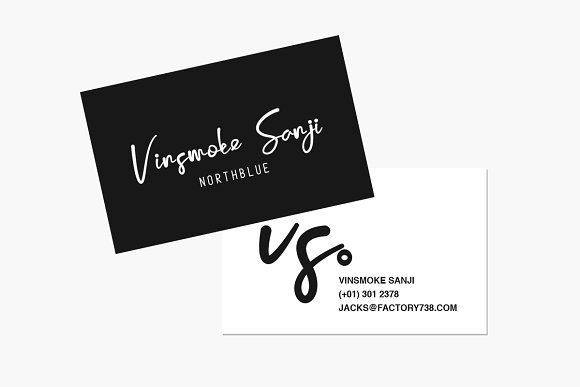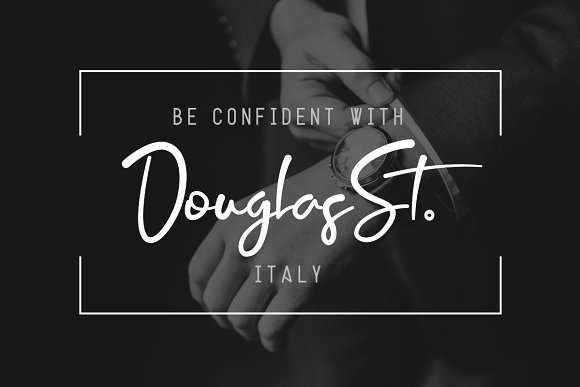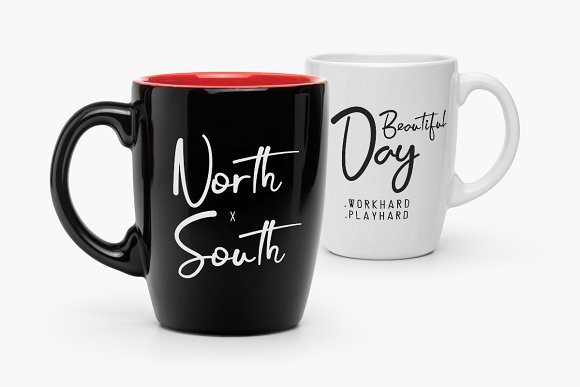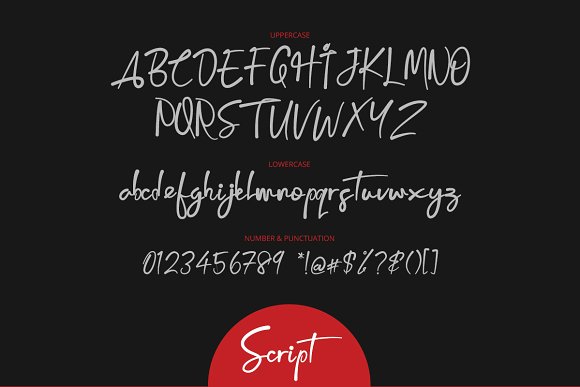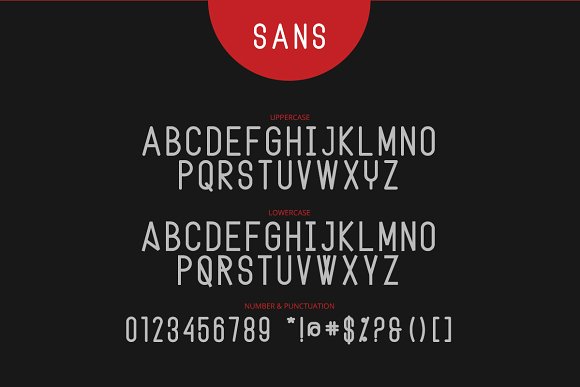
HomeScript FontsJacks Font Script Fonts Jacks Font FacebookXPinterestWhatsApp Jacks Font Poster 2 Jacks Font Poster 3 Jacks Font Poster 4 Jacks Font Poster 5 Jacks Font Poster 6 About Jacks Font Jacks is a fluid font duo that consists out of Jack Script, a handwritten font and Jack Sans. DOWNLOAD NOW People also explored Zallord Font Aracne Ultra Condensed Desta Font Farringdon Ghost Strike Font Home Vintage Font Beautiful is Relative Font Sweet Honey Font Finesolla Font 284 0 TagsJacks Font Previous articleKinemon FontNext articleBrook Font LEAVE A REPLY Cancel reply Comment: Please enter your comment! Name:* Please enter your name here Email:* You have entered an incorrect email address! Please enter your email address here Website: Save my name, email, and website in this browser for the next time I comment. Personal Use Free BD Fluke Personal Use Free Read more about this font Evelyne Personal Use Free Read more about this font Mahisya Personal Use Free Read more about this font Bridgetown Font Personal Use Free Read more about this font BLOG Best Fonts for YouTube Videos: Make Your Thumbnails Stand Out Best Fonts for YouTube Videos: Make Your Thumbnails Stand Out Choosing the right font can make a massive difference in how your YouTube videos perform.... The 10 Best Handwriting Fonts to Add Personality to Your Designs 5 Fonts That Will Dominate Design Trends in 2026 Modern Sans-Serif Fonts That Brands Love in 2025